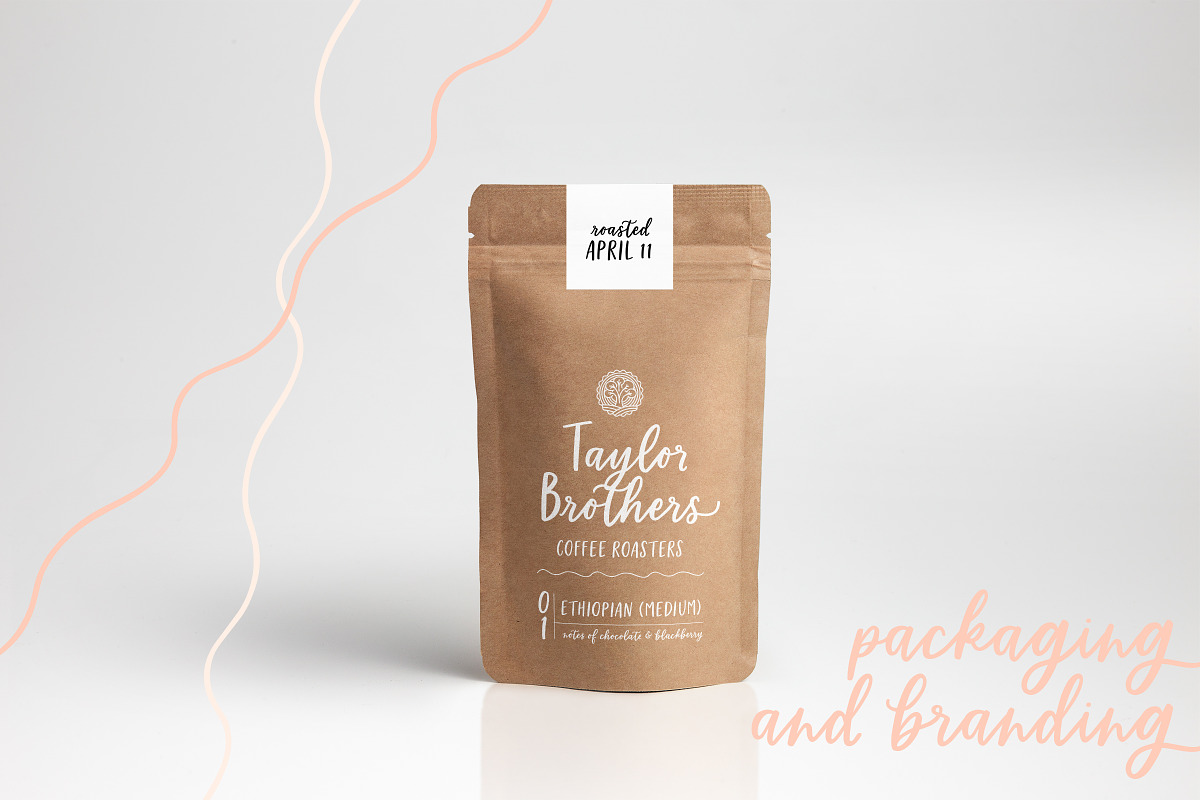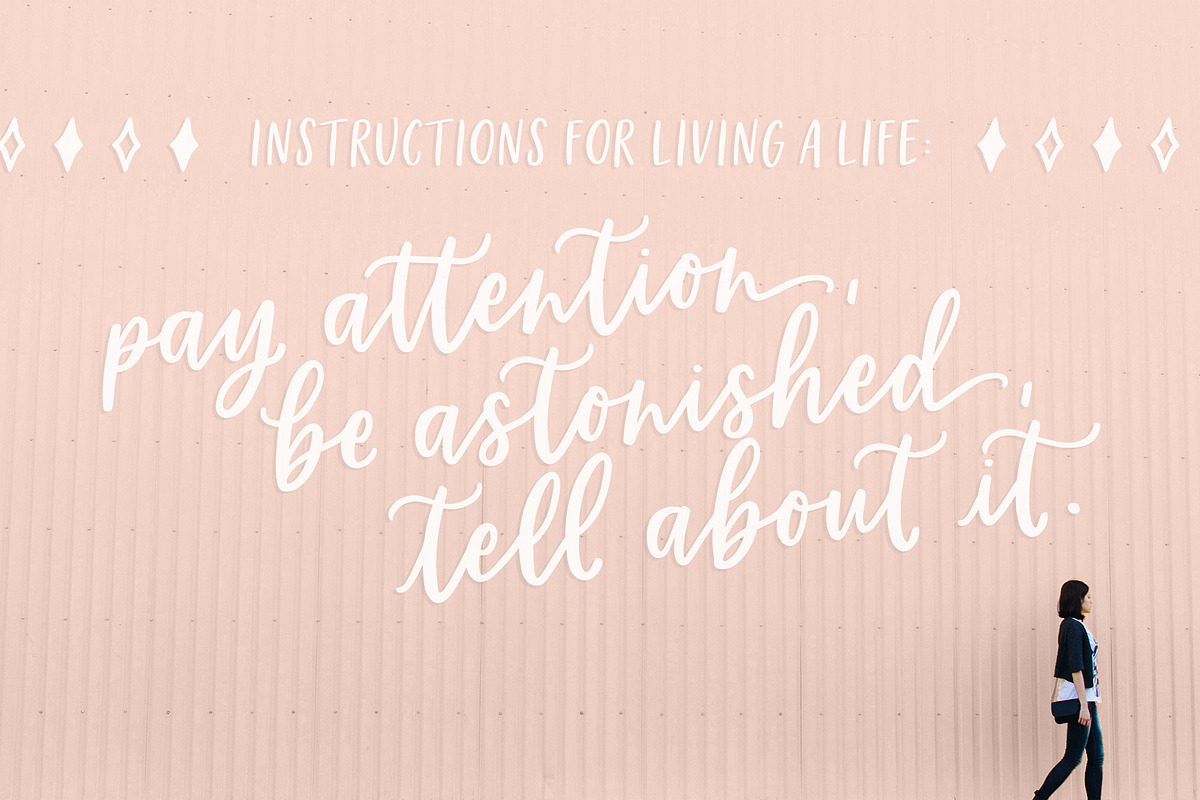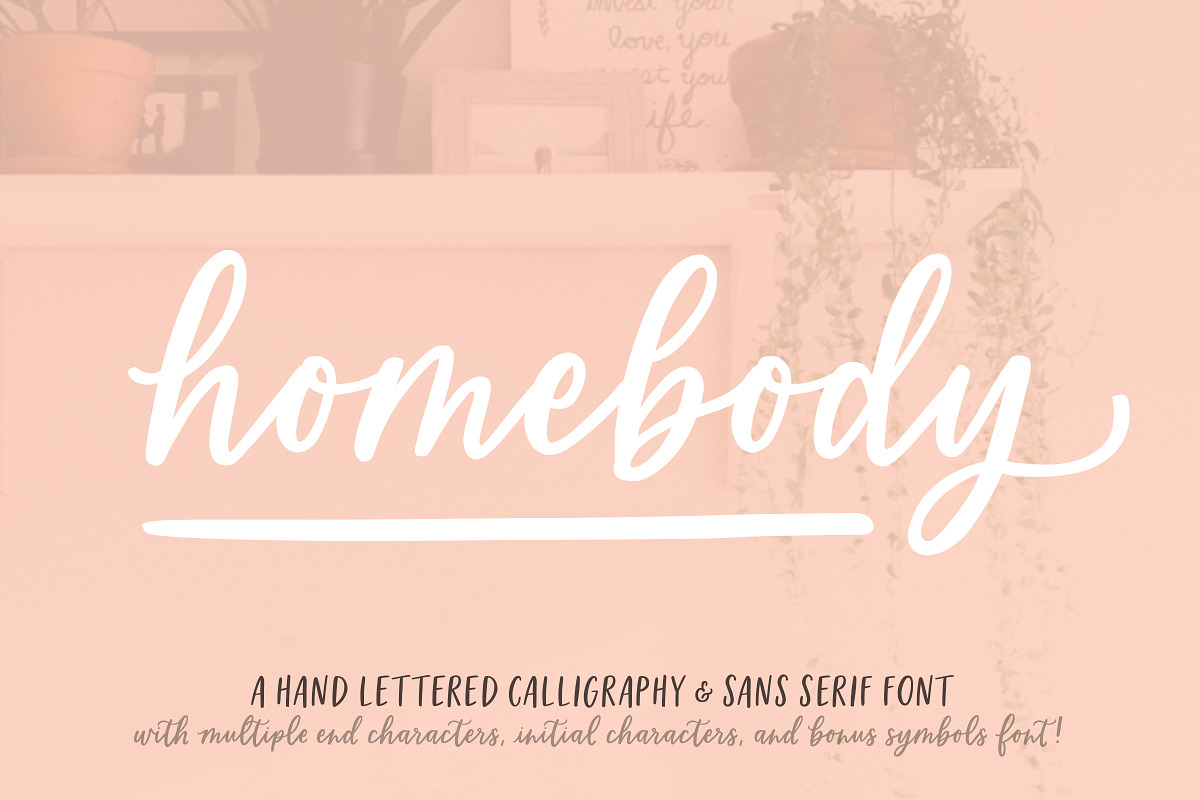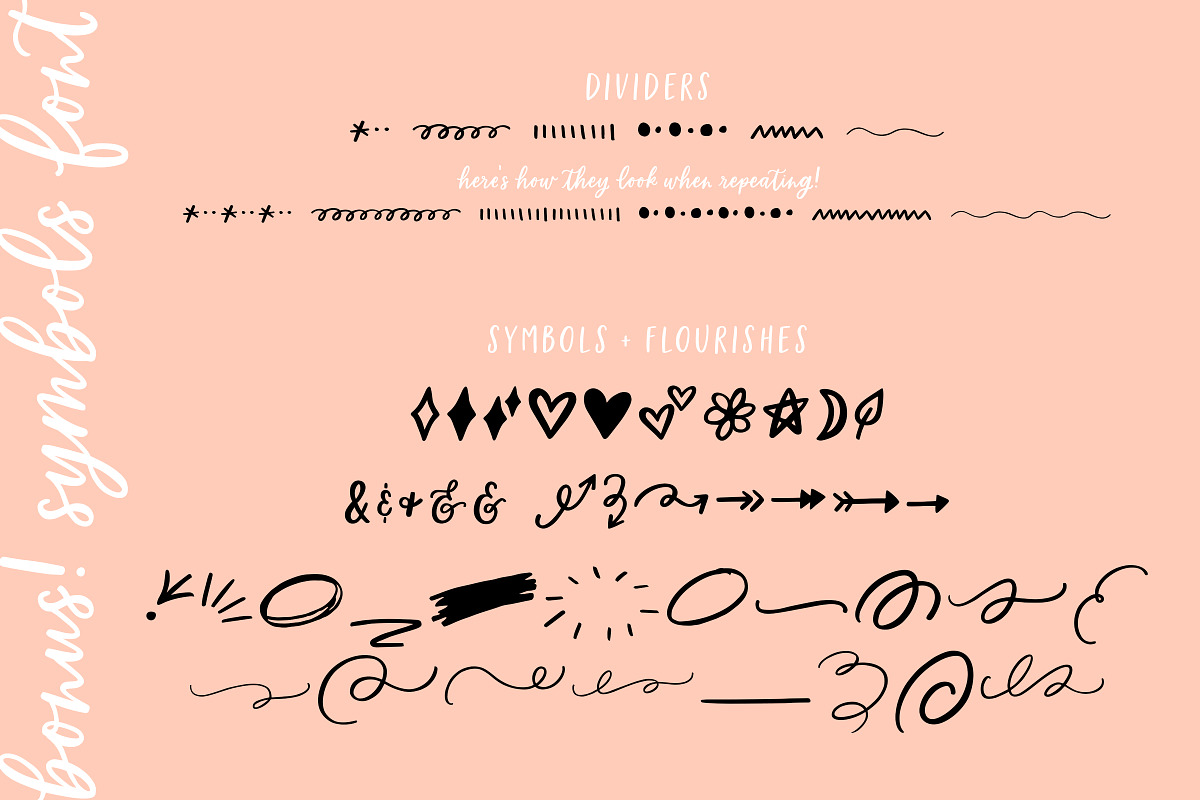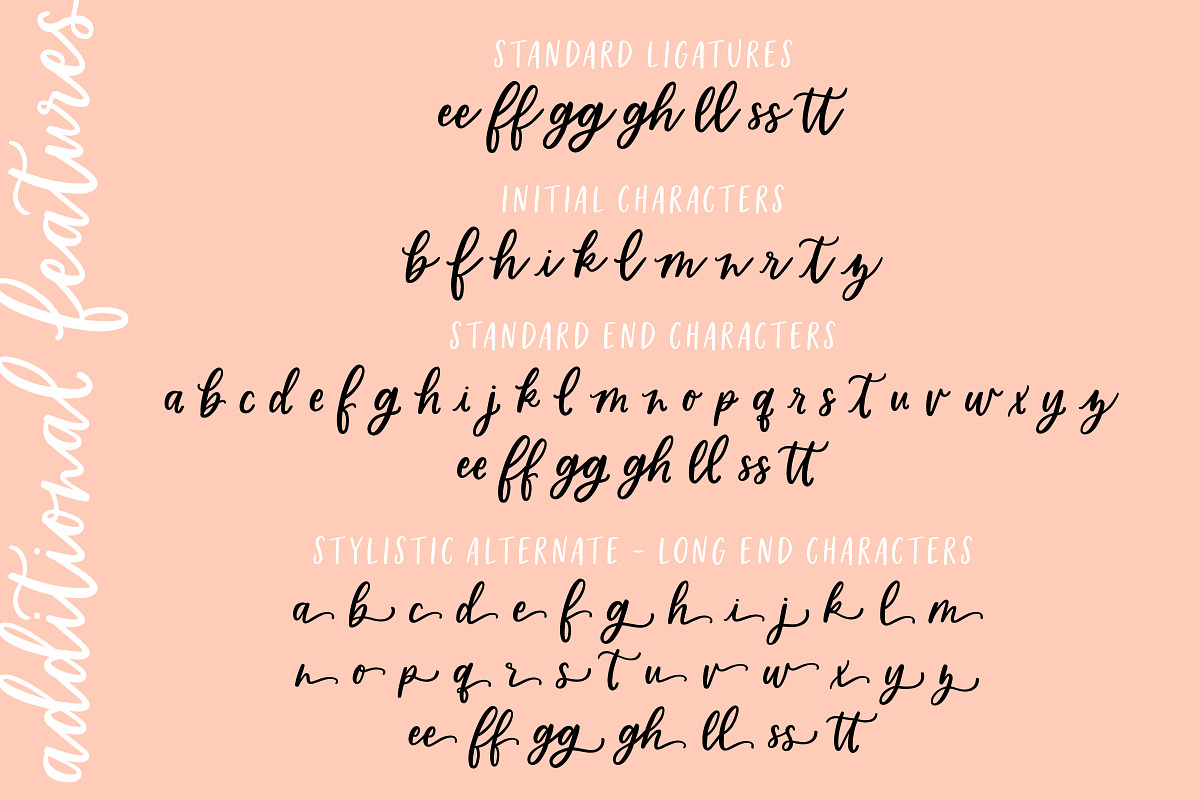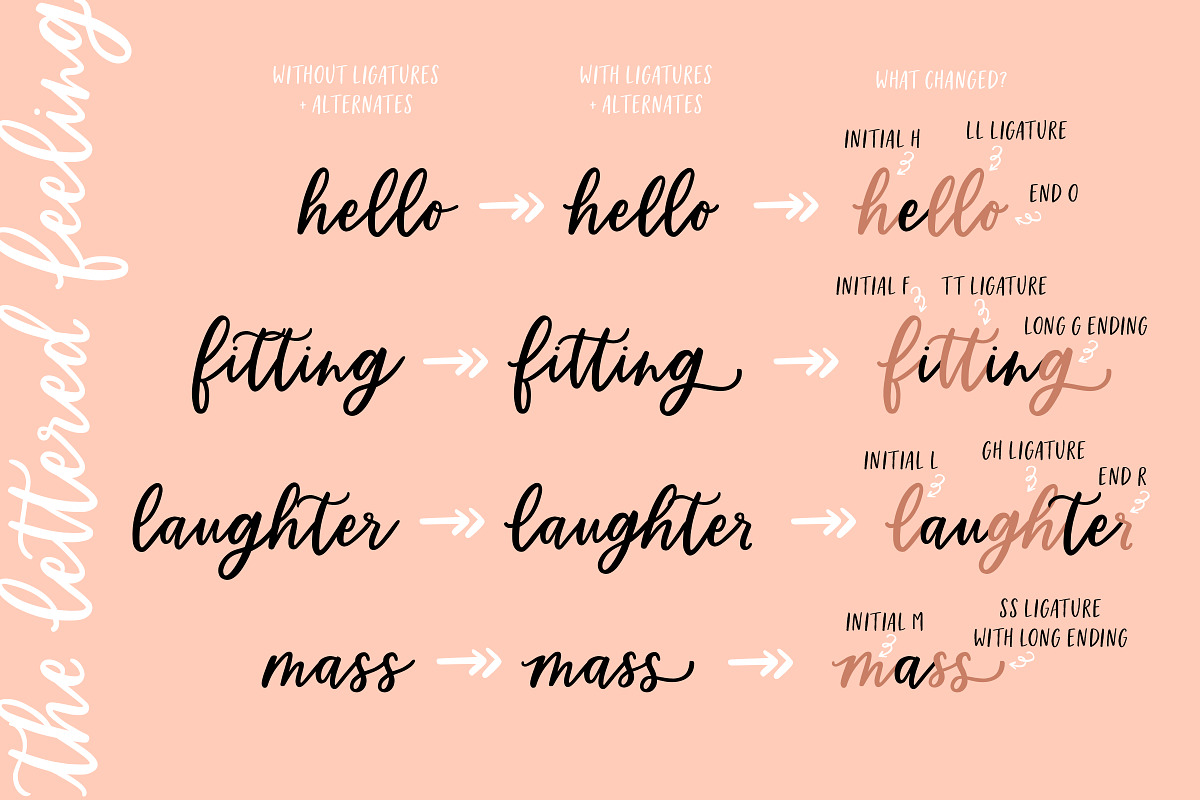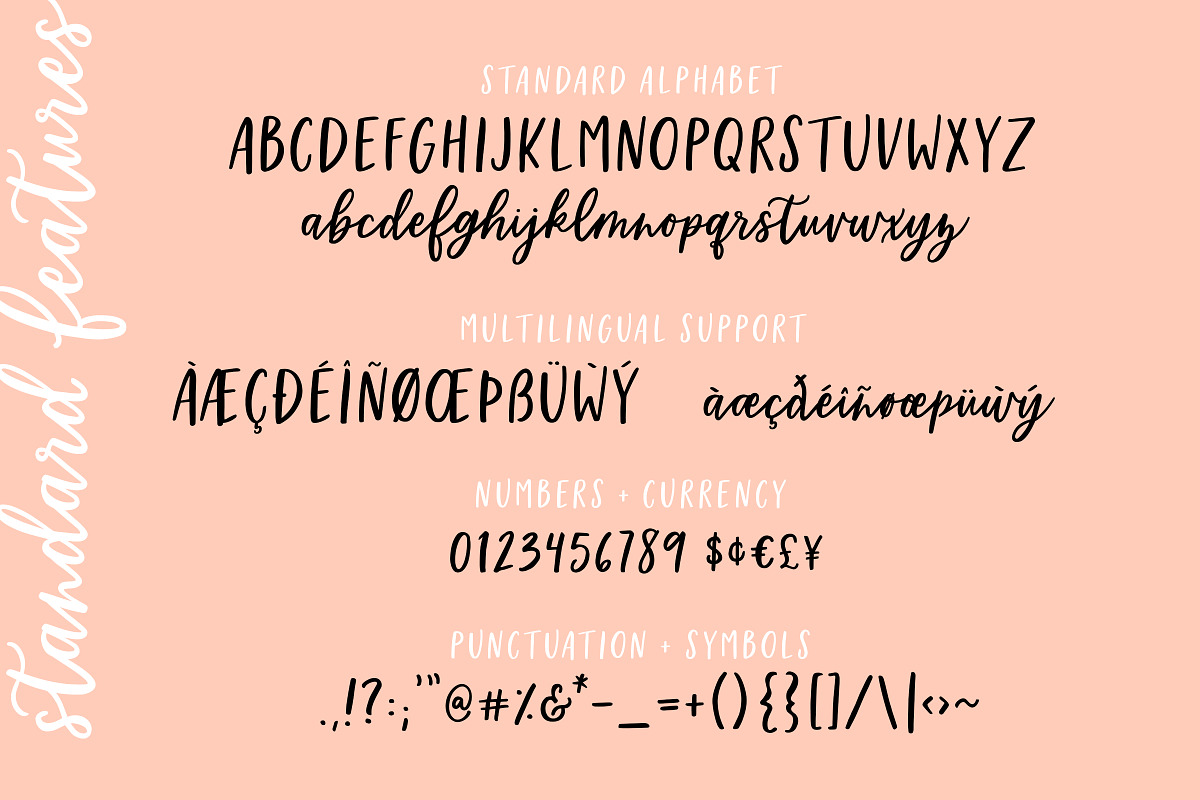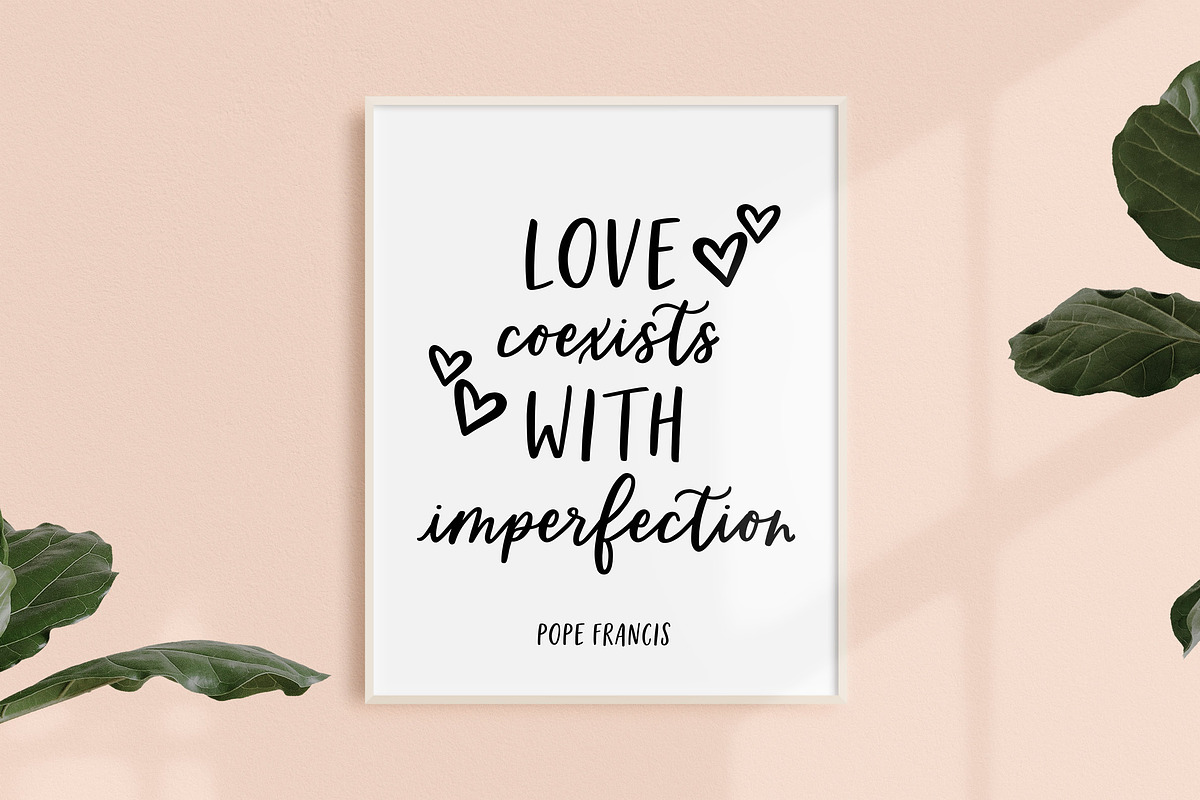
Homebody | Calligraphy Script Font
Add some hand lettered charm to your designs with Homebody!
Perfect for greeting cards, branding, stationery design, social media, packaging, magazine layouts, prints and more!
11 initial (and solo) forms
2 full sets of end characters
Behind the name: This font was created in full during the COVID-19 quarantine - you know, the time we were all homebodies!
- 7 standard ligatures
- 11 initial (and solo) forms
- 2 full sets of end characters
- Homebody Script
- Homebody Symbols